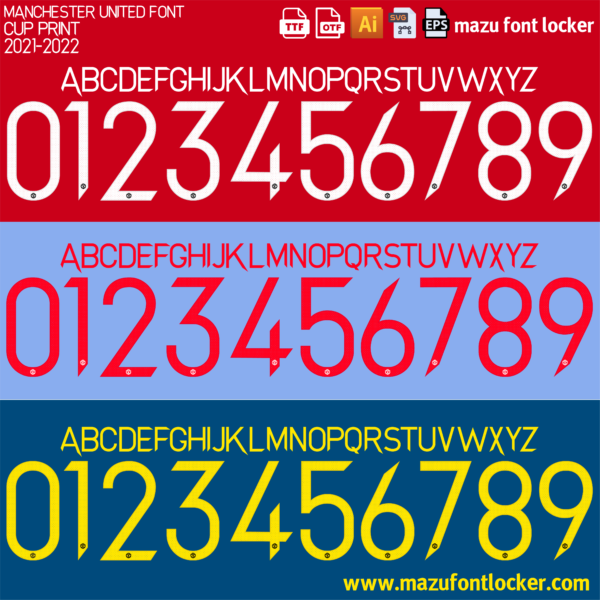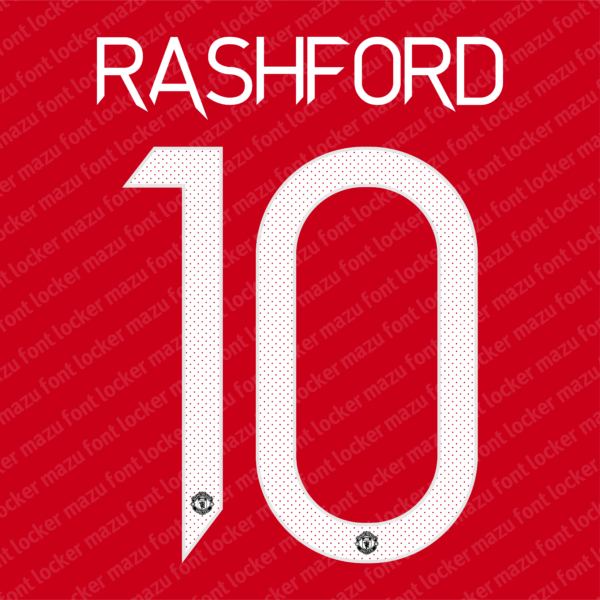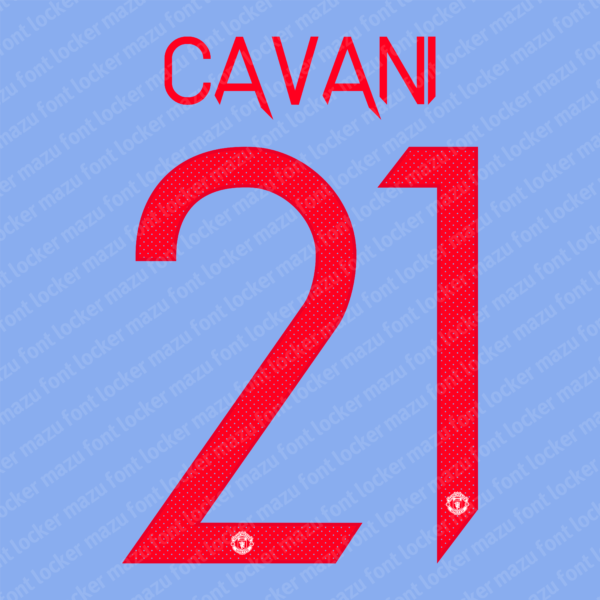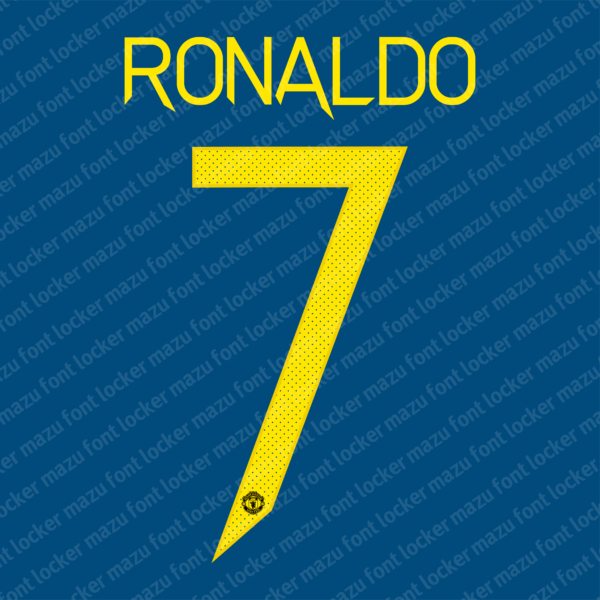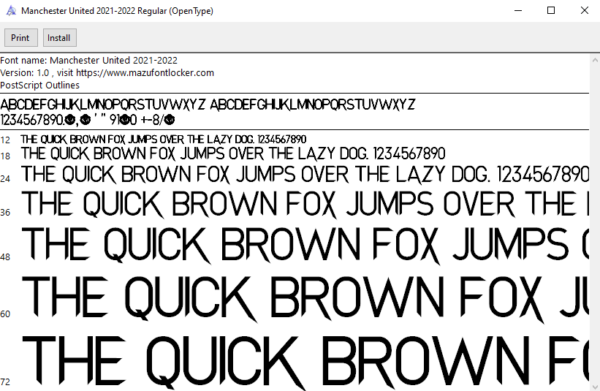
Manchester United 2021-2022 Font is a high-quality football jersey font vector designed to replicate the official lettering and numbering style used during the 2021-2022 season. This Manchester United 2021-2022 font is perfect for designers, football fans, and creators who want accurate and professional jersey customisation.
Inspired by the official kit of Manchester United, this Manchester United 2021-2022 font delivers a clean and authentic match-day appearance. Every letter and number has been carefully recreated to match the real jersey design, ensuring your projects look realistic and professional.
Manchester United 2021-2022 Font Vector – Authentic Jersey Lettering
Manchester United 2021-2022 Font is a high-quality football jersey font vector created to replicate the official lettering and numbering style used during the iconic 2021-2022 Season. Perfect for designers, football fans, and jersey customisation projects, this font set delivers an authentic and professional match-day appearance.
Inspired by the original Manchester United 2021-2022 team kit, every letter and number has been carefully recreated to ensure accurate retro styling for both digital and print projects.
- Authentic 2021-22 Manchester United jersey lettering style
The authentic lettering style helps recreate the classic look of the Manchester United 2021-2022 kit with professional accuracy.
Unlike generic jersey fonts, this set is designed with a strong focus on authenticity and accuracy. Every detail is based on the original match lettering style used during the 2021-22 season, helping designers and collectors create realistic football shirt designs.
This Manchester United 2021-2022 font vector set is designed for authentic football jersey customization and works perfectly for retro football projects, collector designs, and professional sportswear artwork.